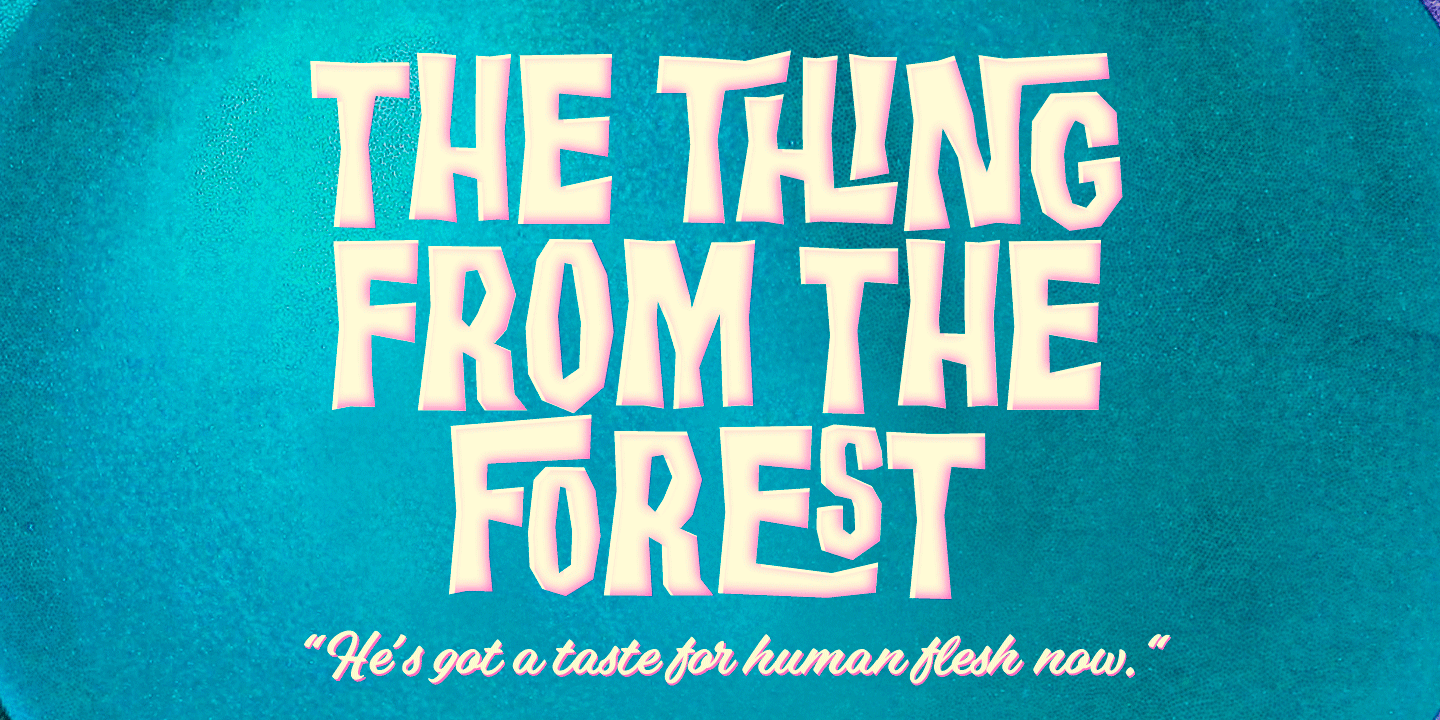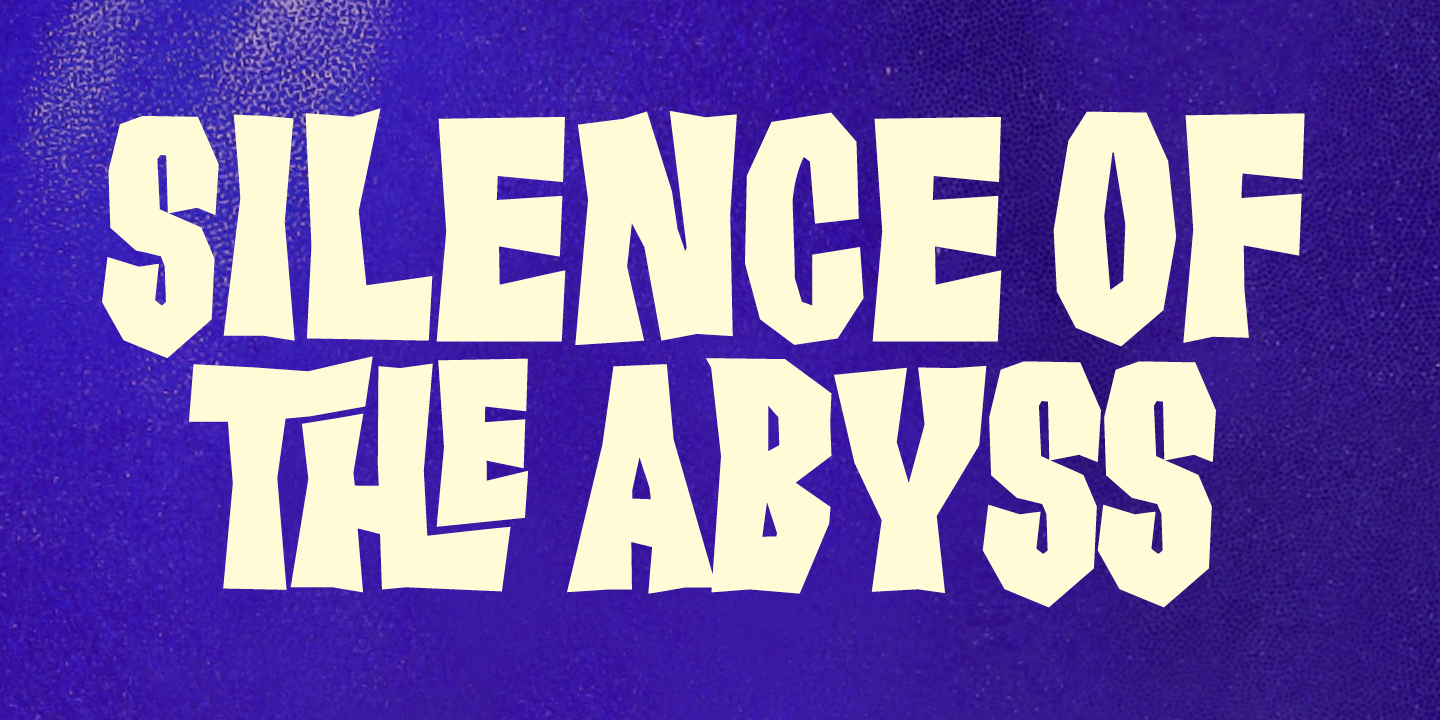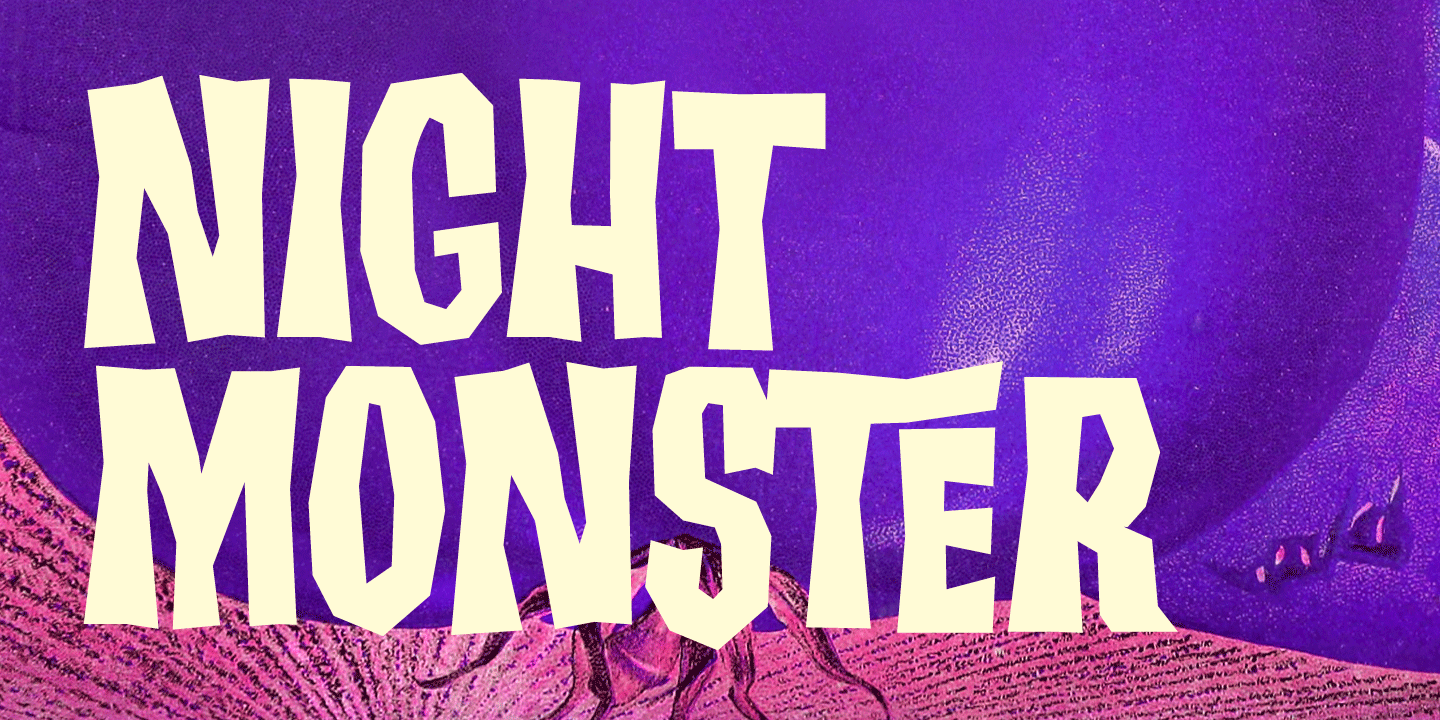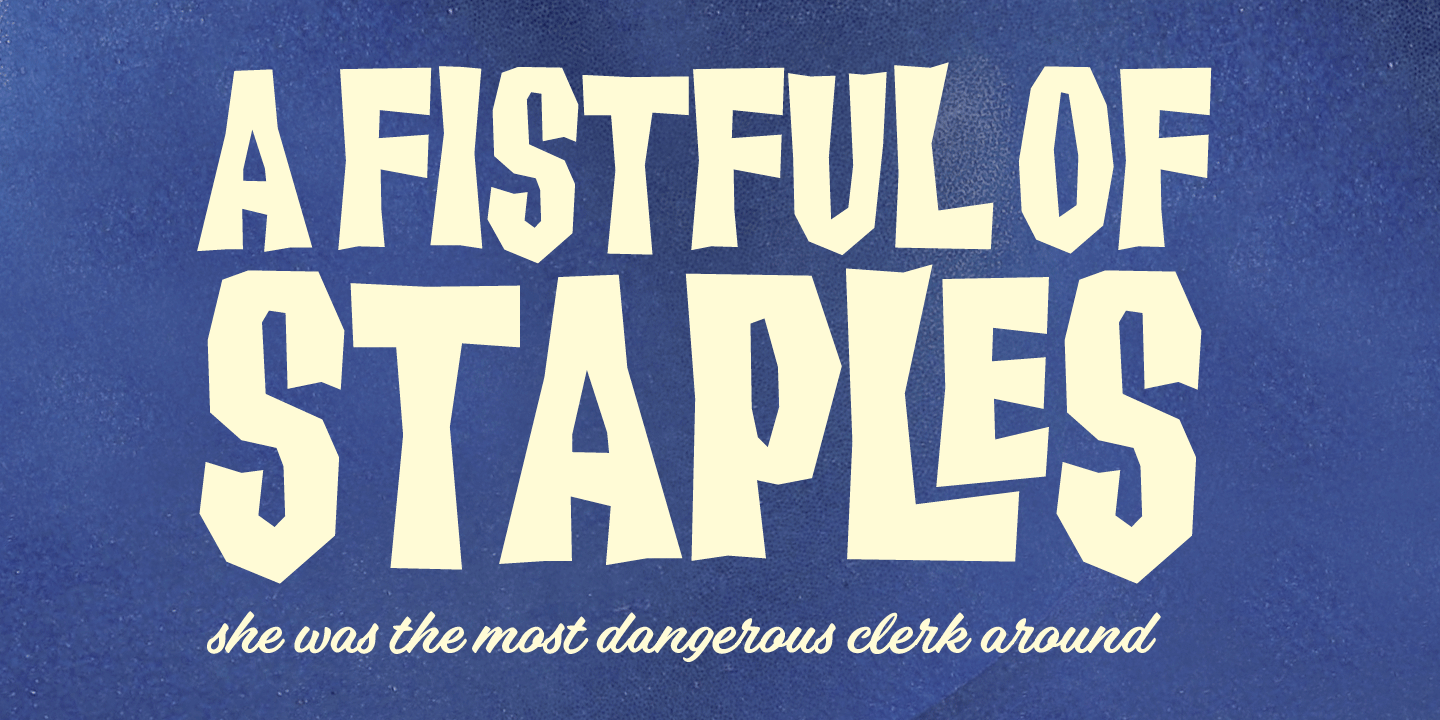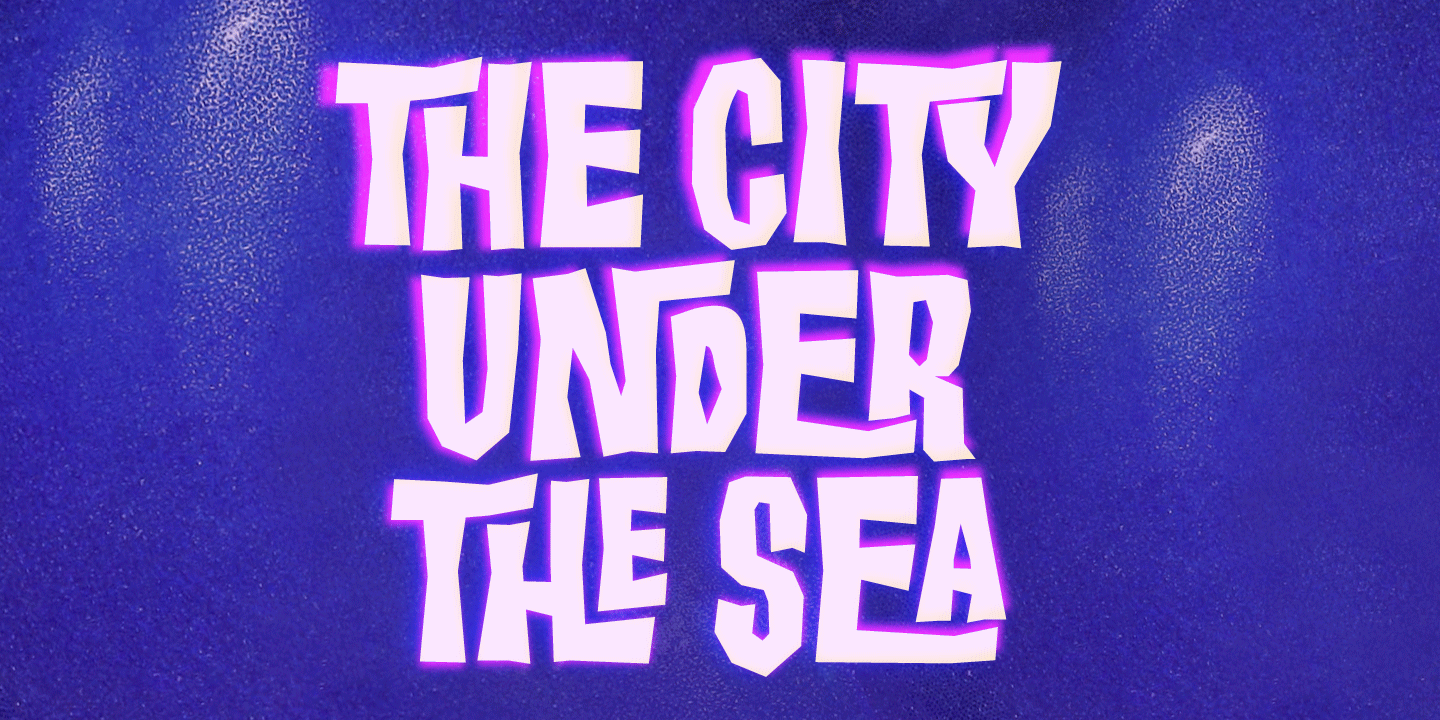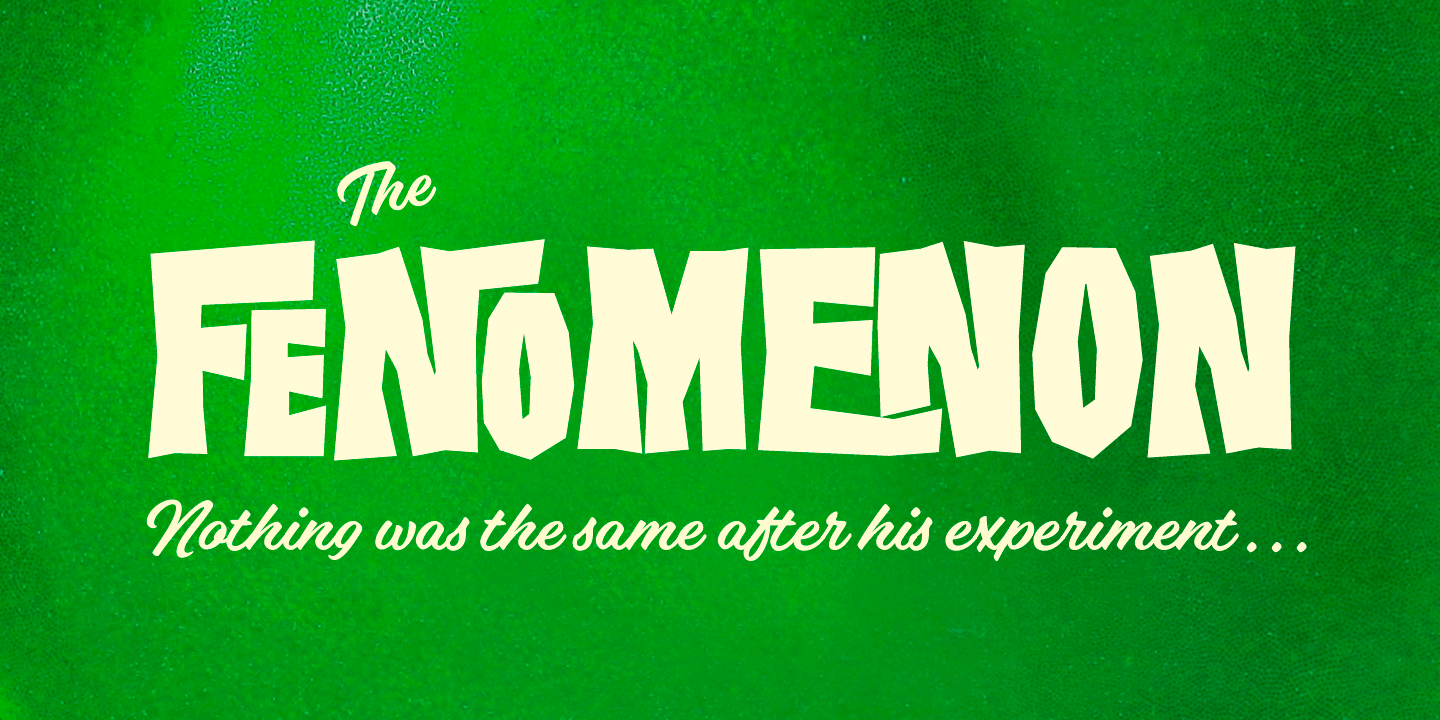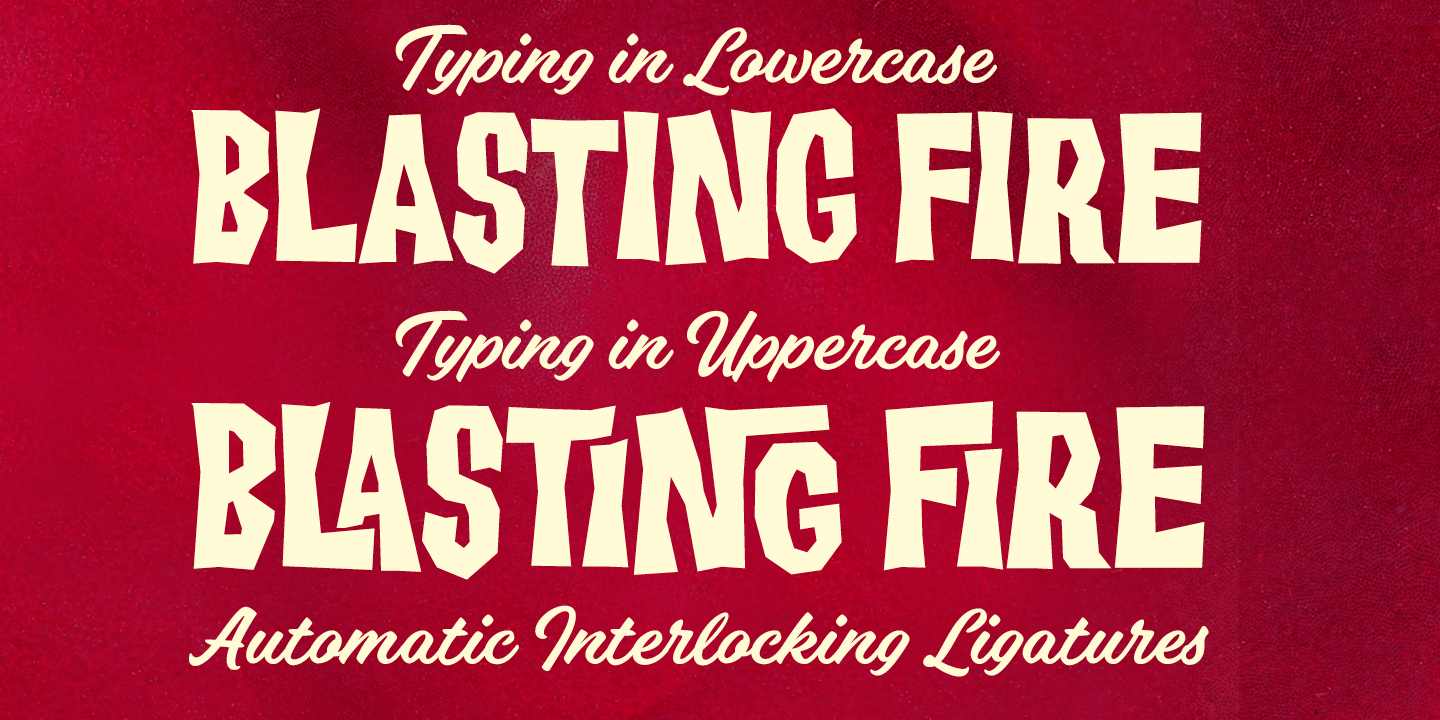
FT Giorgio
FT Giorgio is a modern sans serif family with a condensed, geometric build and a strong display presence. Its angular shapes, clean lines, and narrow proportions give it a bold, high-impact look while staying crisp and legible.
With three styles—Regular, Light, and Bold—this family offers useful range for designers who want a consistent voice across different weights. The overall feel is minimalist yet forceful, making it a smart choice for posters, branding, headlines, signage, packaging, and other display work that benefits from a clear, contemporary tone.
Created by Fenotype, this is a straightforward, stylish option for projects that call for modern structure and visual confidence without unnecessary ornament.